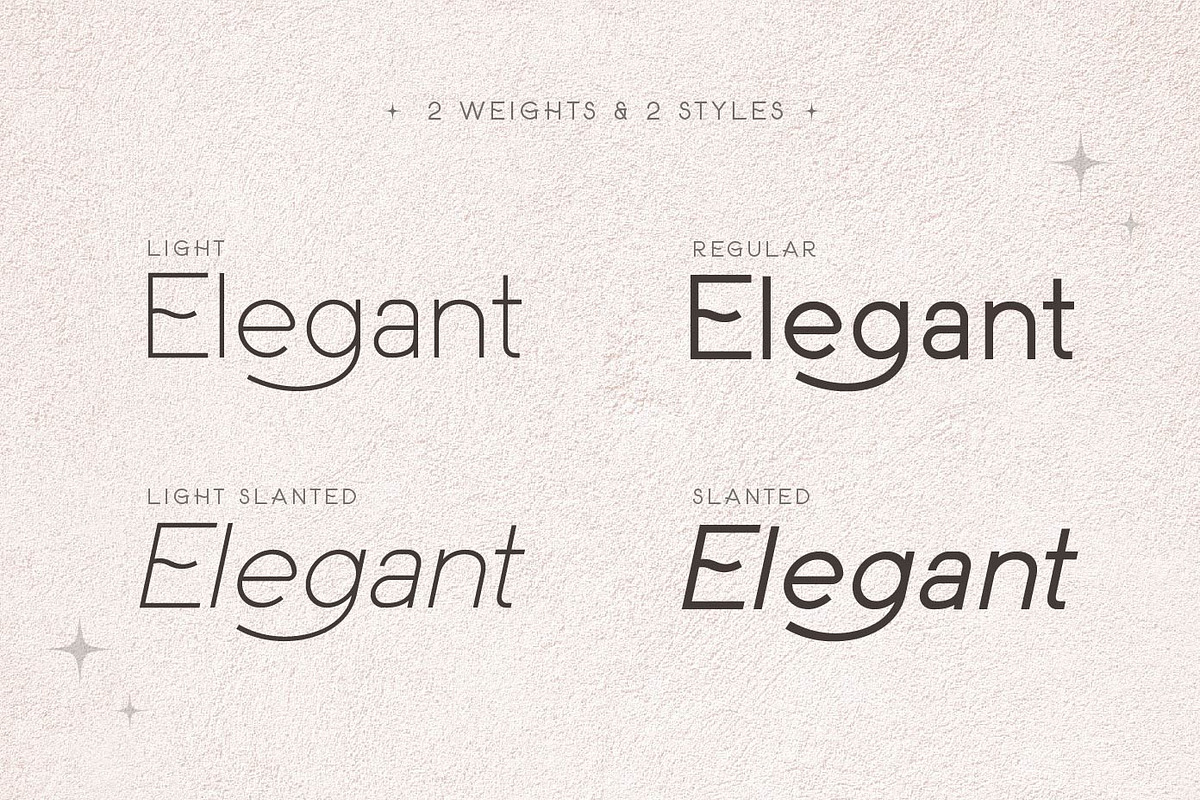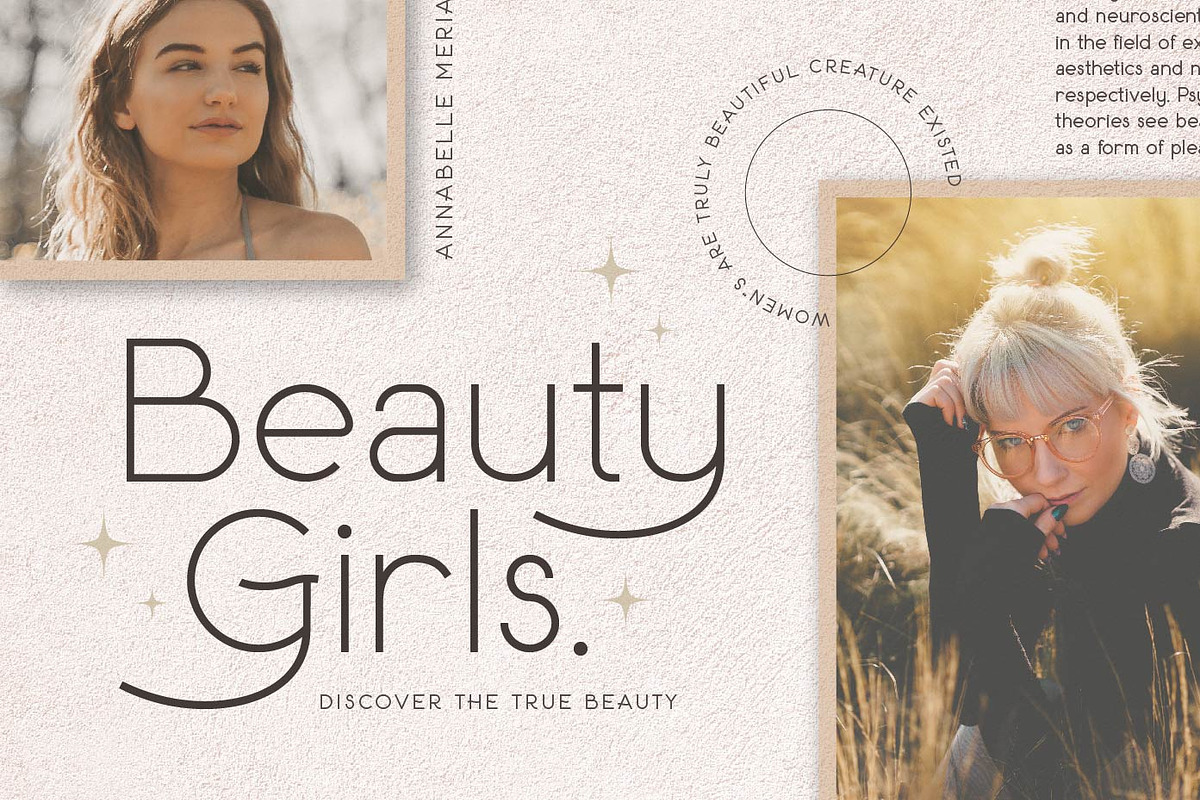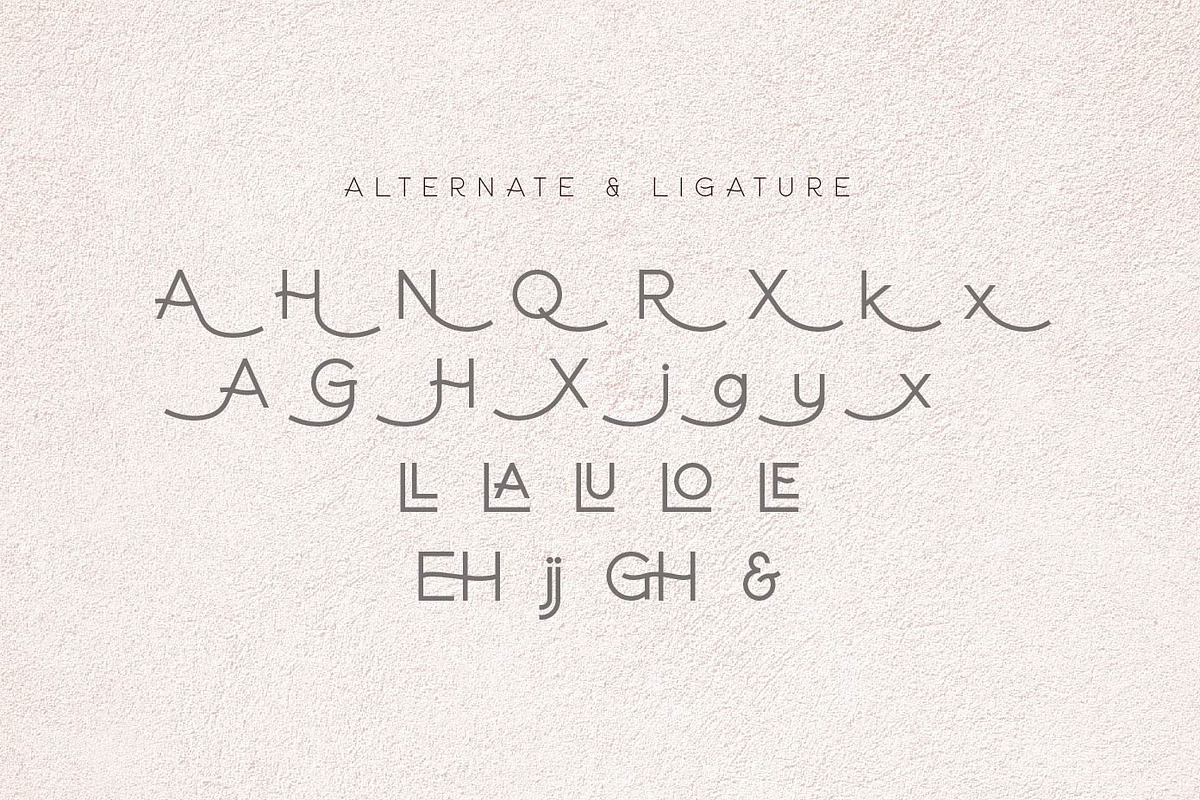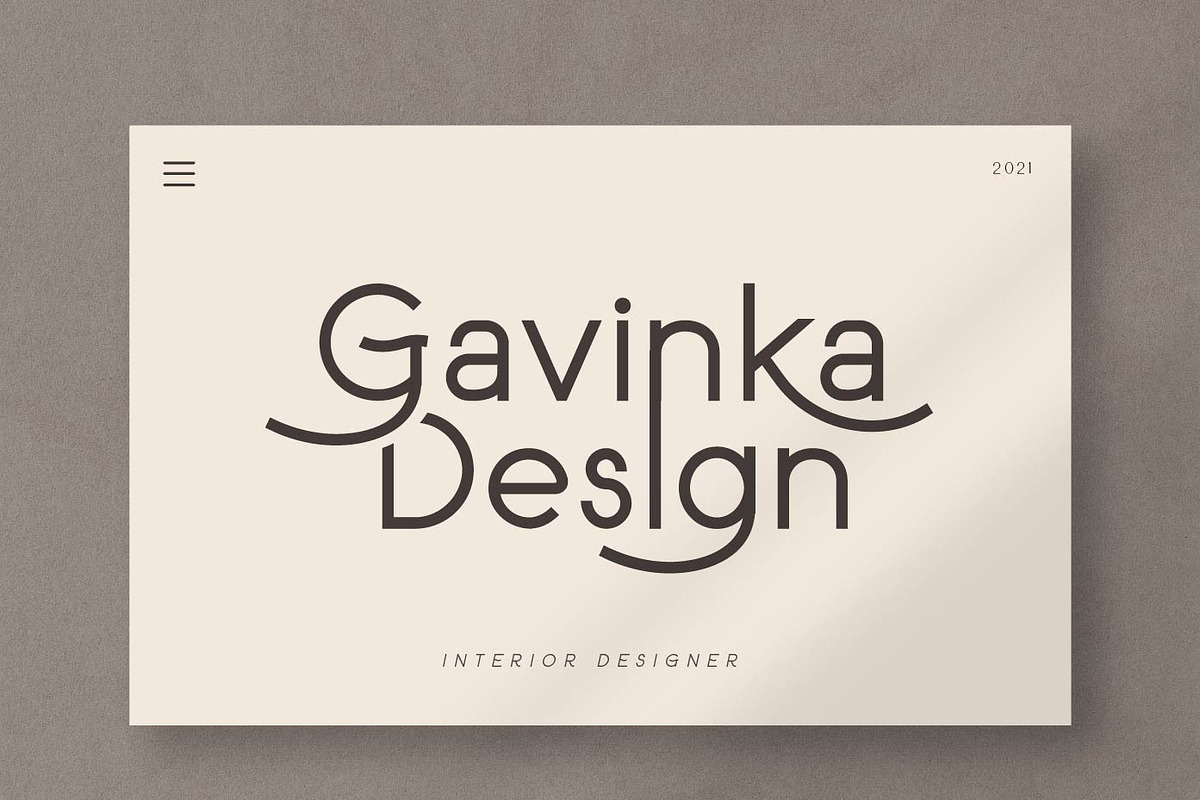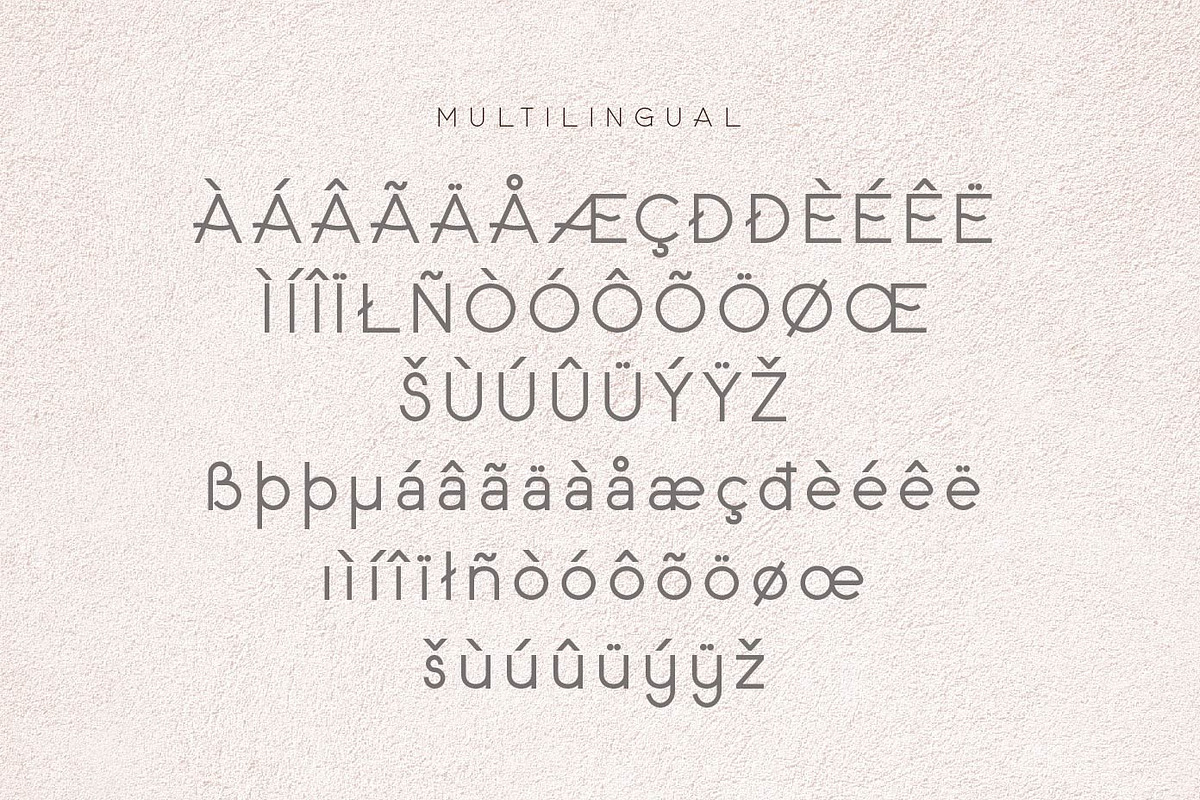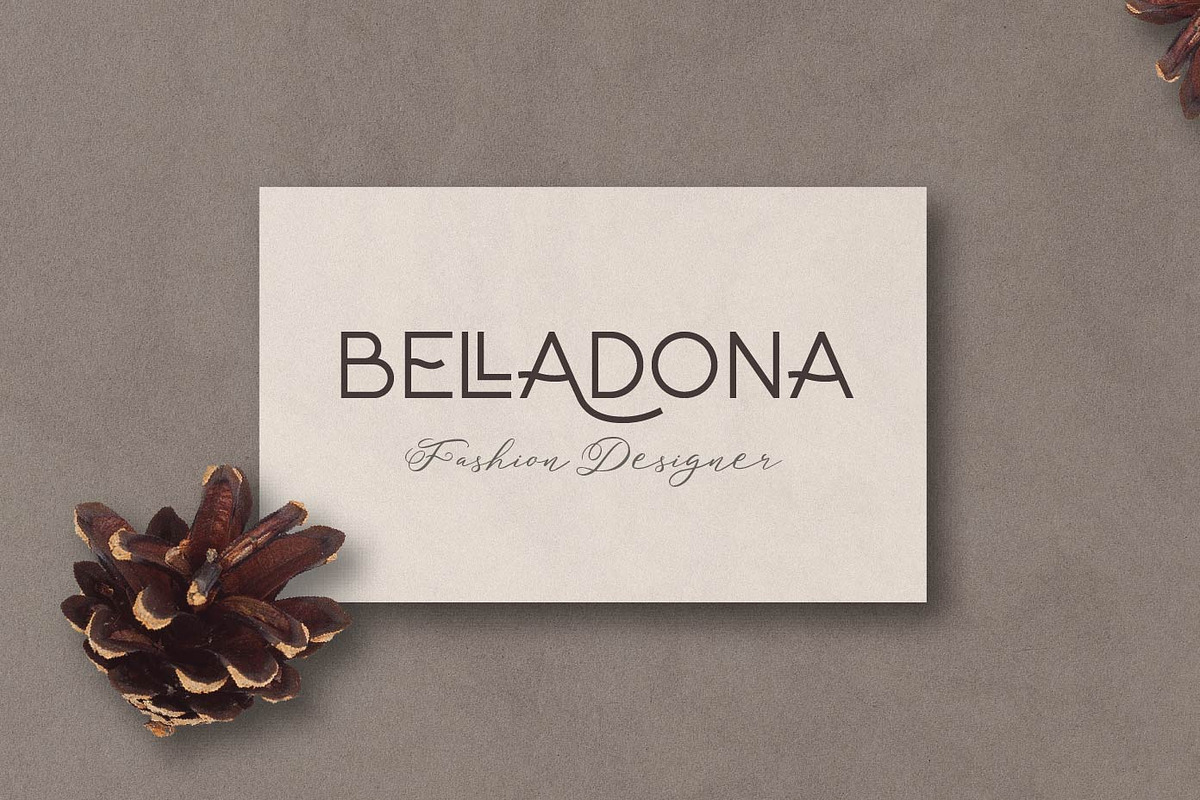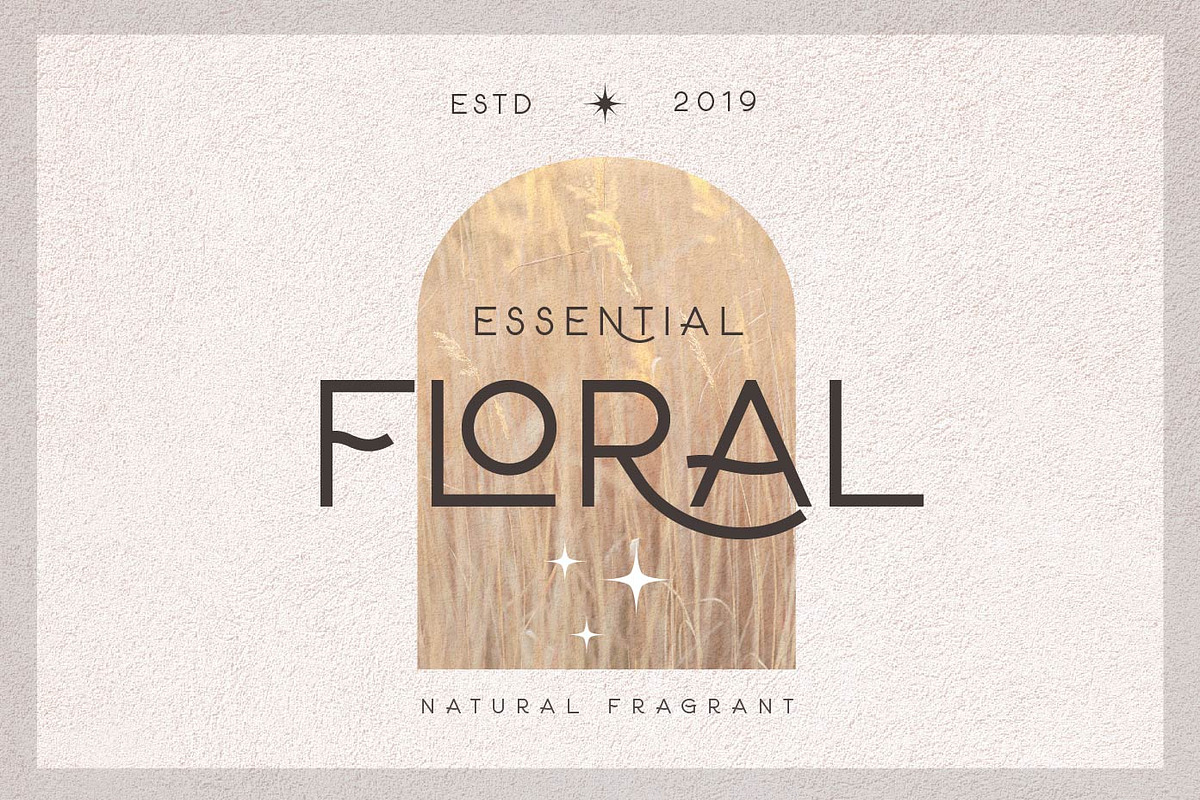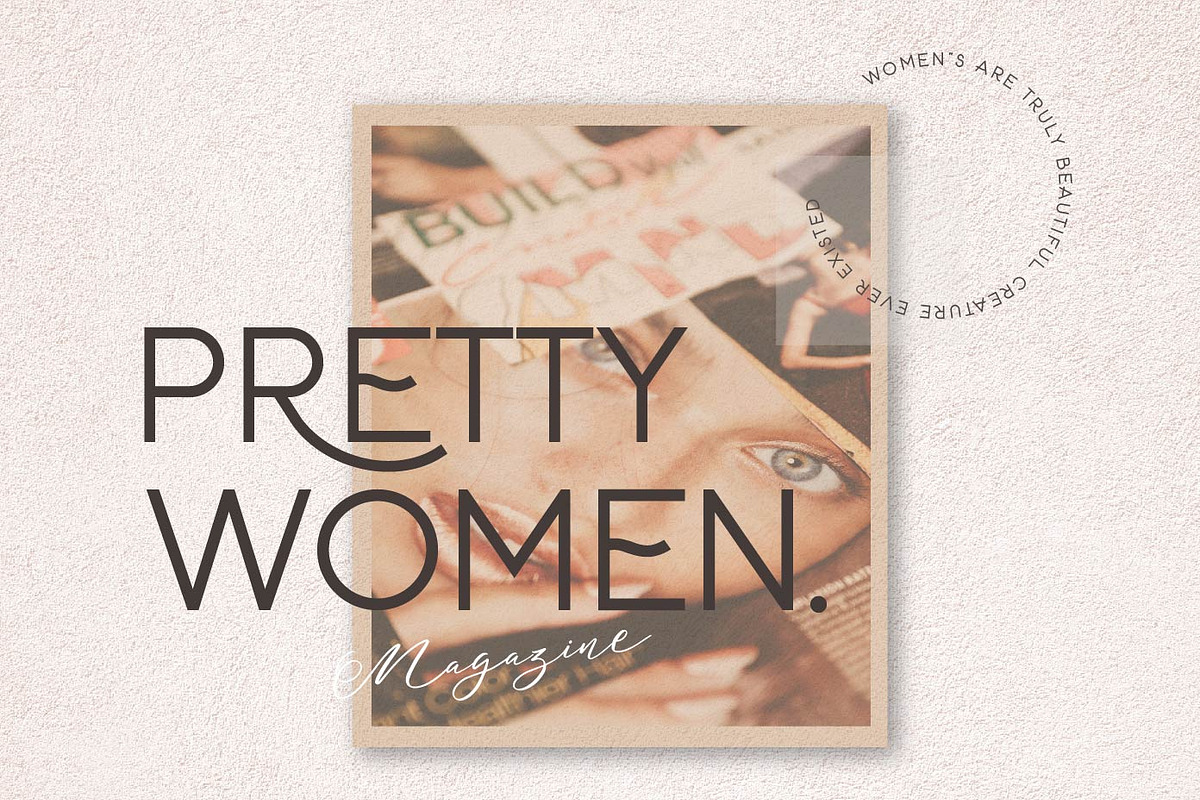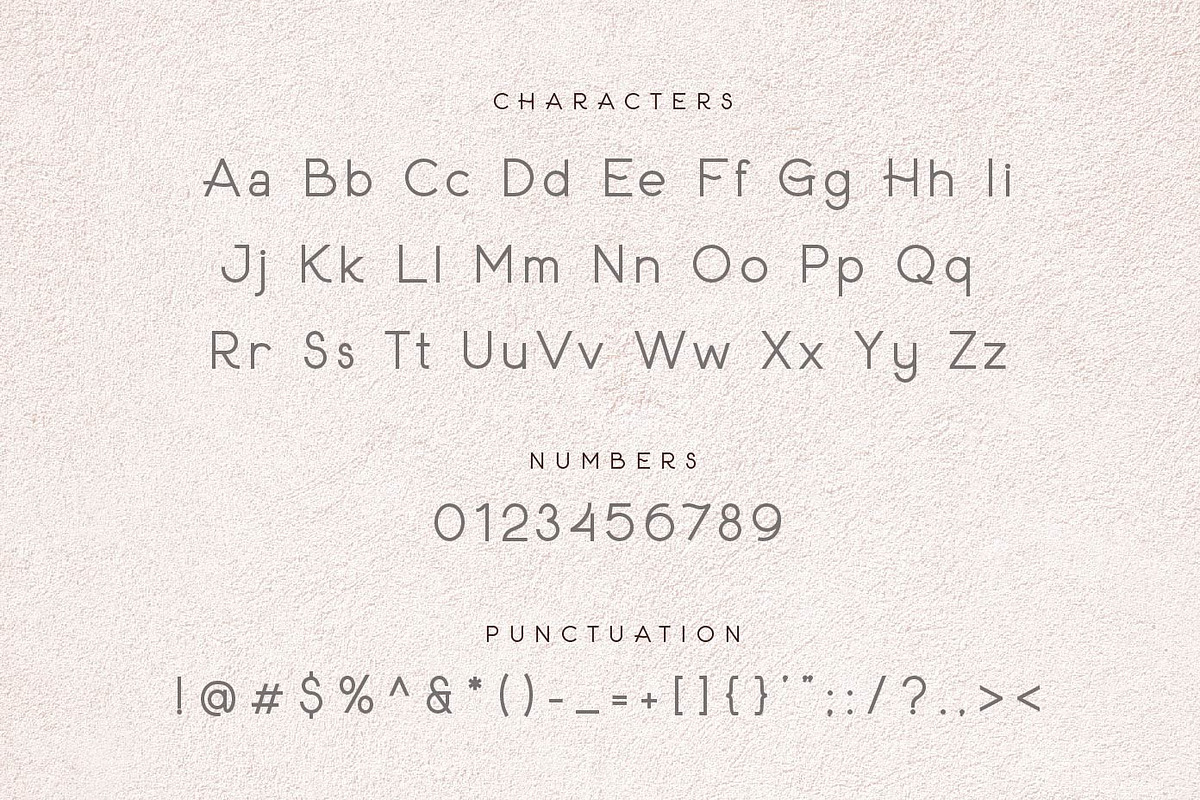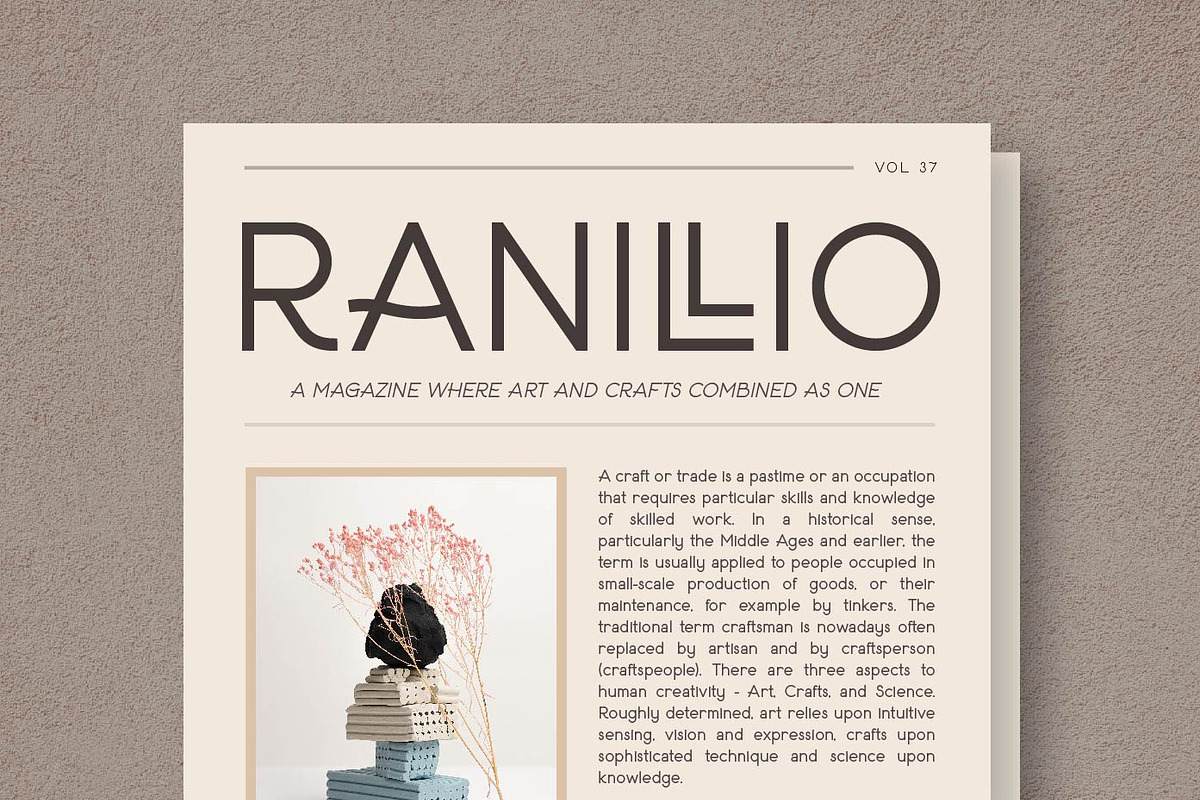
Anisver - Elegant Sans Font
Anisver is an elegant sans serif typeface with touch of modern and simplicity. With this typeface, you can use it for magazine cover, headline, wedding invitations, logo, powerpoint templates design, and many.
Uppercase Characters Lowercase Characters Multilingual support. Alternate glyphs